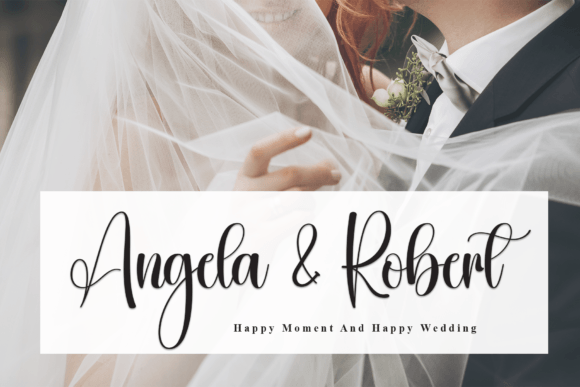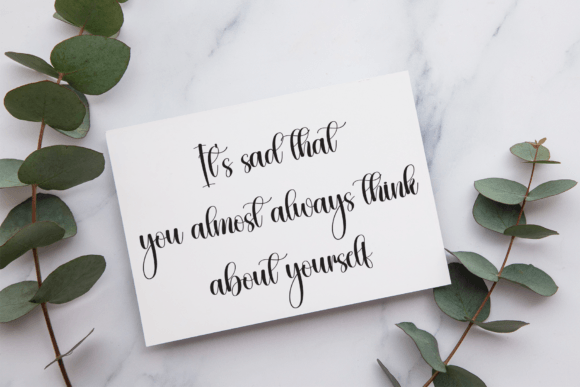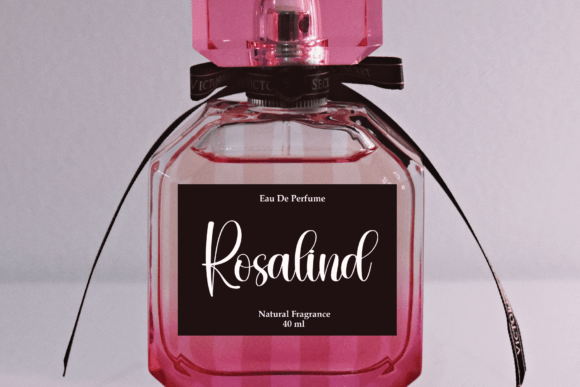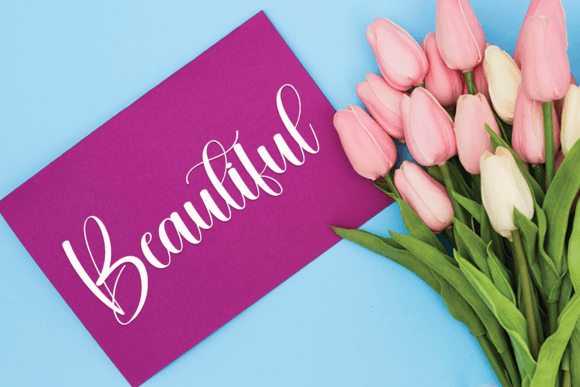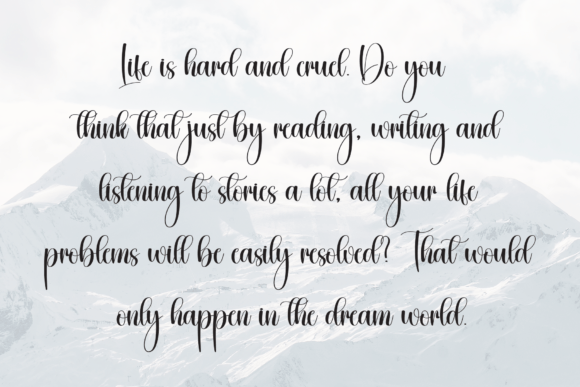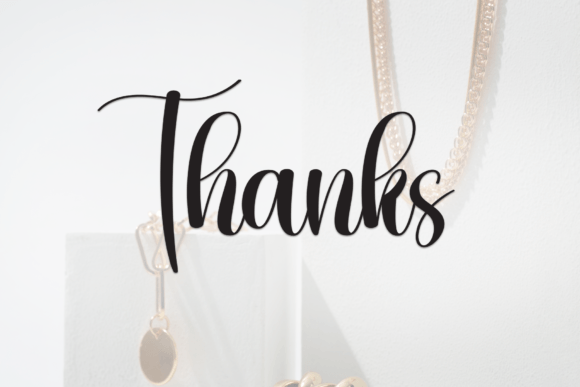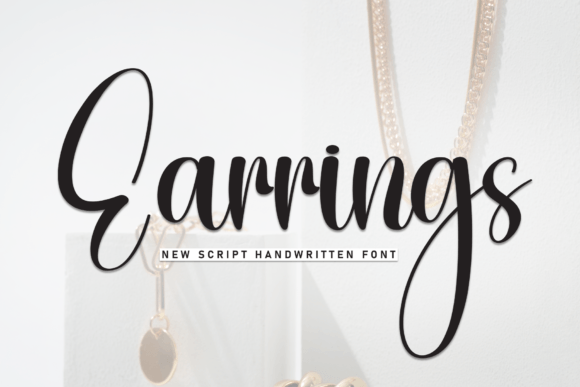
Earrings Font: Elevate Your Designs with Elegance and Sophistication
In the world of typography, few fonts manage to convey the same level of elegance and sophistication as Earrings Font. This stylish and incredibly elegant script font has captured the hearts of designers and crafters alike, and for good reason. With its beautiful, flowing lines and intricate details, Earrings Font is the perfect addition to any design that requires a touch of refinement and luxury.
The Perfect Font for Wedding Designs
One of the most popular uses for Earrings Font is in wedding designs. Whether you’re creating wedding invitations, thank you cards, or other stationery, this font is sure to impress. Its elegant and sophisticated style perfectly complements the romance and joy of a wedding, making it an ideal choice for couples looking to add a touch of class to their special day.
Imagine setting the tone for your wedding with a beautiful invitation featuring Earrings Font. The intricate details and flowing lines of the font will transport your guests to a world of luxury and sophistication, setting the stage for an unforgettable celebration. And with its versatility, you can use Earrings Font for a wide range of wedding designs, from formal invitations to thank you cards and even wedding logos.
Beyond Wedding Designs: Endless Possibilities
While Earrings Font is a popular choice for wedding designs, its uses extend far beyond. This versatile font can be used for a wide range of design projects, including:
- Quotes: Add a touch of elegance to your inspirational quotes with Earrings Font.
- Greeting cards: Create beautiful and sophisticated greeting cards for any occasion.
- Logos: Use Earrings Font to create a luxurious and refined logo for your business or brand.
- Business cards: Elevate your business cards with the sophisticated style of Earrings Font.
Whether you’re a designer or crafter, Earrings Font is a valuable addition to your toolkit. Its versatility and elegance make it the perfect choice for any project that requires a touch of sophistication and refinement.
What Makes Earrings Font So Special?
So, what sets Earrings Font apart from other fonts? Here are just a few features that make it so special:
- Beautiful, flowing lines: Earrings Font features intricate, flowing lines that add a touch of elegance to any design.
- Intricate details: The font’s intricate details make it perfect for designs that require a high level of sophistication.
- Versatility: Earrings Font can be used for a wide range of design projects, from wedding designs to logos and business cards.
- Easy to read: Despite its intricate details, Earrings Font is easy to read, making it perfect for designs that require a clear and concise message.
If you’re looking to elevate your designs with a touch of elegance and sophistication, look no further than Earrings Font. With its beautiful, flowing lines and intricate details, this font is sure to impress. Whether you’re a designer or crafter, Earrings Font is a valuable addition to your toolkit.
In conclusion, Earrings Font is a stylish and incredibly elegant script font that is perfect for designers and crafters looking to add a touch of sophistication to their designs. With its beautiful, flowing lines and intricate details, this font is sure to impress. Whether you’re creating wedding designs, logos, or business cards, Earrings Font is a valuable addition to your toolkit.